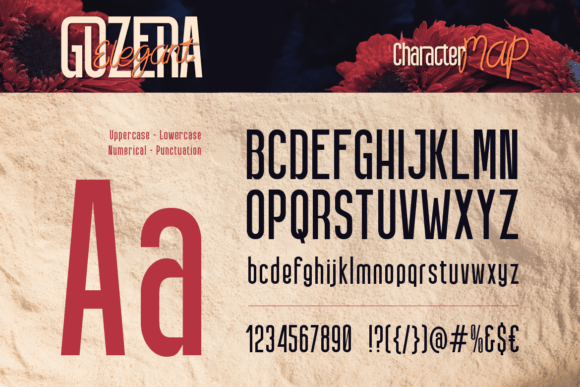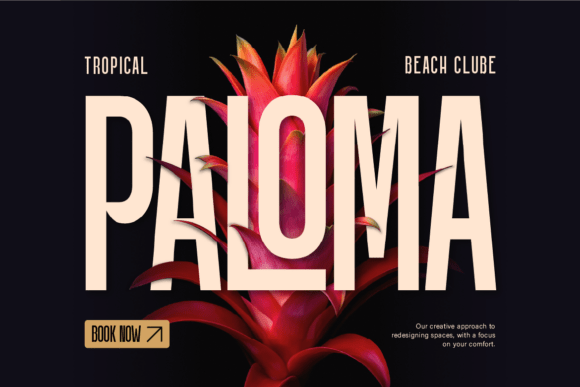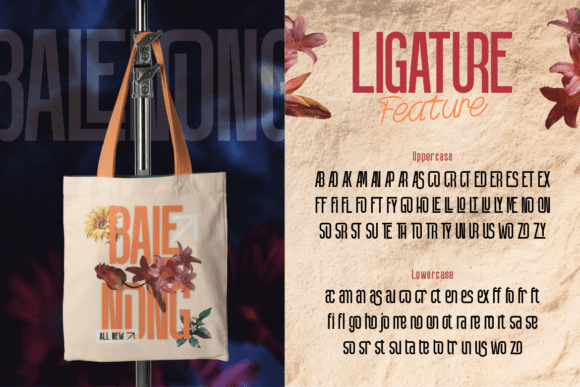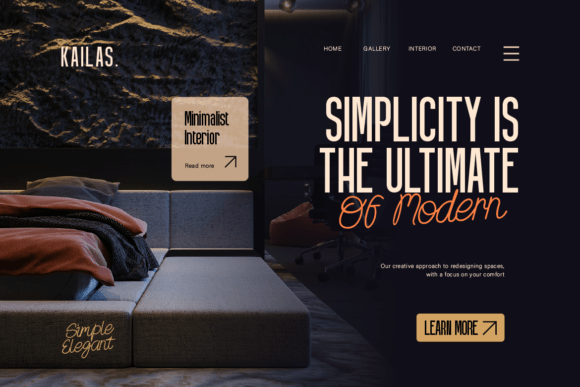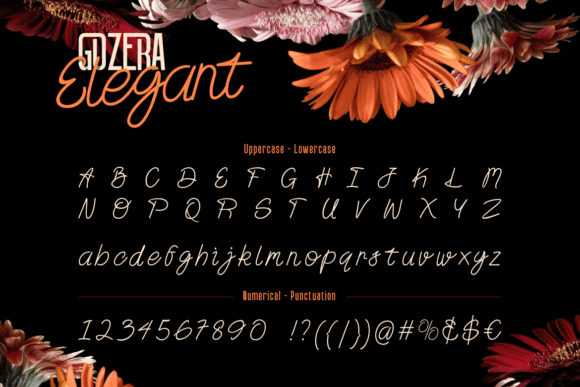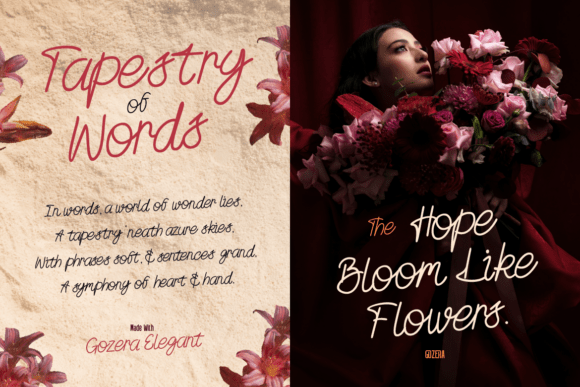
Introducing Gozera: The Ultimate Font Duo for Stunning Designs
In the world of typography, finding the perfect font combination can make all the difference in creating visually appealing designs. Whether you’re a seasoned designer or a crafty DIY enthusiast, having the right fonts at your disposal can elevate your projects from ordinary to extraordinary. This is where Gozera comes in – a remarkable font duo that pairs a modern condensed sans serif with an elegant handwritten script, offering unparalleled versatility and style.
The Power of Contrast: A Modern Condensed Sans Serif and an Elegant Handwritten Script
Gozera is not just any font; it’s a duo that brings together two contrasting yet perfectly balanced styles. The first component is a modern condensed sans serif, characterized by its clean lines, simplicity, and contemporary feel. This font is perfect for headlines, titles, and any design element where you want to make a bold statement. Its condensed nature allows for efficient use of space, making it ideal for layouts where real estate is limited but impact is desired.
The second component of Gozera is an elegant handwritten script, which adds a touch of sophistication and warmth to any design. This script font is meticulously crafted to mimic the fluidity and uniqueness of handwriting, providing a personal and bespoke feel to your projects. It’s perfect for adding a human touch to your designs, making them stand out with personality and charm.
Endless Design Possibilities with Gozera
The combination of a modern condensed sans serif and an elegant handwritten script in Gozera opens up a world of creative possibilities. Here are just a few ways you can leverage this versatile font duo:
- Branding and Logos: Use the sans serif for the main logo or brand name to convey modernity and professionalism, and the script for taglines or secondary text to add a personal touch.
- Posters and Flyers: Grab attention with bold, condensed sans serif headlines and complement them with detailed, elegant script for descriptions or quotes.
- Web Design: Enhance your website’s typography with Gozera, using the sans serif for headings and navigation, and the script for highlighting special offers or testimonials.
- Stationery and Invitations: Add a touch of elegance to your cards, letters, and invitations with the handwritten script, and use the sans serif for dates, locations, or other details.
Why Choose Gozera?
There are several reasons why Gozera stands out as a go-to font duo for designers and crafters:
- Unique Combination: The pairing of a modern sans serif with an elegant script offers a unique aesthetic that’s hard to find in standard font collections.
- Versatility: Gozera’s versatility means it can be used across a wide range of projects, from digital designs to print materials.
- Legibility: Both fonts in the Gozera duo are highly legible, ensuring your message is communicated clearly and effectively.
- Easy to Use: Despite their sophisticated look, Gozera fonts are easy to use, even for those with basic design skills.
Gozera is more than just a font duo; it’s a design solution that bridges the gap between modernity and elegance. Whether you’re working on a professional project or a personal craft, Gozera provides the tools you need to create stunning, dynamic designs that capture attention and convey your message with style. With its unique combination of a modern condensed sans serif and an elegant handwritten script, Gozera is set to become an indispensable part of your design toolkit.
So why settle for ordinary when you can create something extraordinary with Gozera? Dive into the world of limitless design possibilities and let your creativity shine with this exceptional font duo.